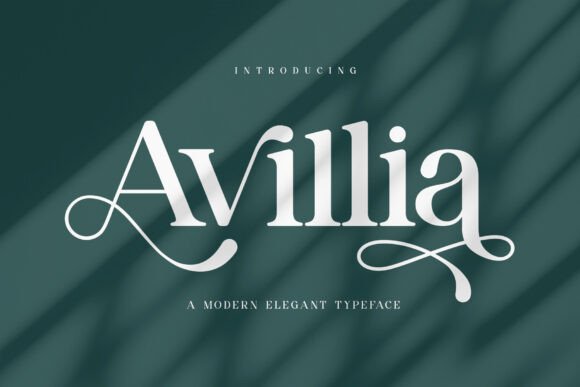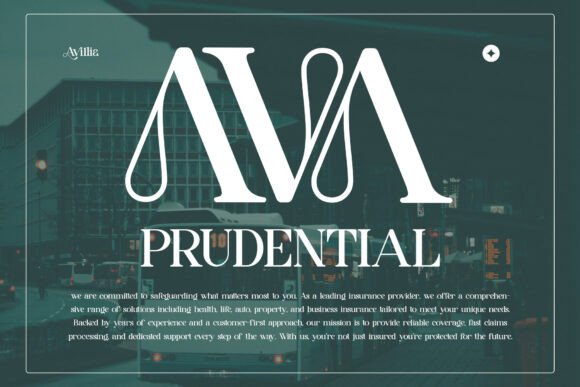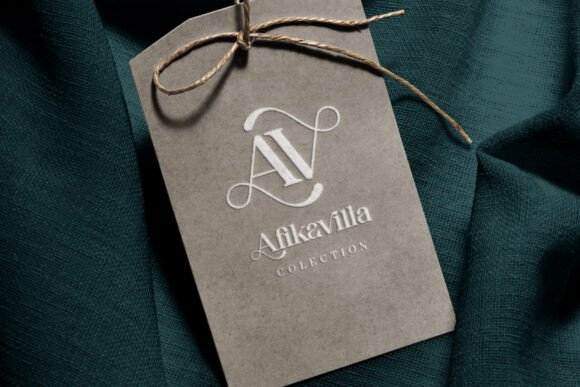
Avillia Font
About the Avillia Font
Make a bold statement with Avillia Font, a powerful and memorable font. Avillia is an elegant and bold serif font. Fall in love with its incredibly versatile style and use it to create gorgeous wedding invitations, beautiful stationary art, eye-catching social media posts, and much more!
Avillia’s elegant boldness makes it ideal for headlines, logos, and short-form text in branding materials, invitations, and posters. Its refined serifs lend a touch of sophistication, while its weight commands attention. However, its strong character and relatively large x-height make it less suitable for body text or long paragraphs where readability is paramount. Avoid using it in UI contexts requiring small sizes.
Pairing Avillia effectively depends on the desired effect. For a classic, balanced feel, consider pairing it with a clean sans-serif like Montserrat or Lato. To enhance its elegant quality, a delicate script font like Great Vibes or Allura could work well for secondary text elements. For a more modern contrast, a geometric sans-serif such as Futura or Bebas Neue could create a striking visual juxtaposition.
Avillia projects a sophisticated yet confident personality, making it perfect for brands that wish to convey luxury, trustworthiness, or a sense of timeless style. Its boldness ensures impact without being overly aggressive, striking a balance between elegance and authority.
Avillia Font Usage Examples
Avillia Font Example